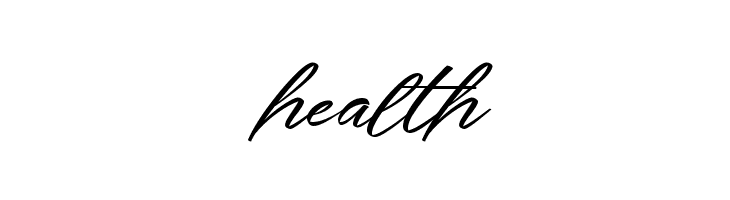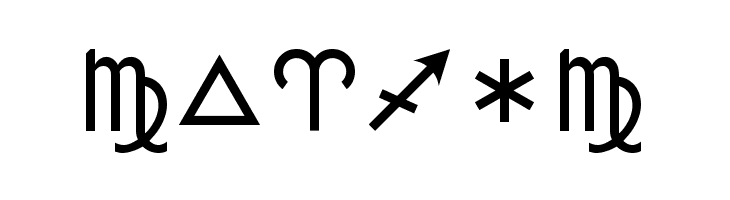
Hamburger Heaven NF Font
A bold, slanted font with a dynamic and energetic style.
Heimat Font
A bold and ornate Blackletter font with intricate details and historic charm.
HamburgerHeaven Font
A bold, dynamic font with a slight slant and modern elegance.
Neudeutsch Font
A bold, dramatic blackletter-style font with sharp, angular lines and intricate detailing.
South Hamburg Font
A sophisticated and elegant script font with fluid, cursive strokes.
DTCBrodyM37 Font
Leibniz-Fraktur Font
A decorative blackletter font with intricate, Gothic-inspired letterforms.
Schwaben Alt Bold Font
A bold, ornate blackletter font with a medieval aesthetic.
Schwaben Alt UNZ1A Italic Font
A classic blackletter font with intricate, angular strokes and a medieval feel.
Brahms-Gotisch Font
A bold, intricate blackletter font with a medieval aesthetic.
Hamburge Regular Font
A modern sans-serif font with rounded edges and uniform stroke width.
Hamburg Regular Font
A bold, decorative font with intricate details and strong character presence.
Pee's Celtic Plain Font
A decorative font with Celtic-inspired interwoven patterns and bold, ornate letters.
Schwaben Alt UNZ1A Font
An ornate and traditional font with intricate, decorative letterforms.
Salmon Hamburger Font
A bold, playful handwritten font with rounded strokes and a whimsical style.
HamburgerHeaven Font
A bold, dynamic font with a modern slant and strong visual impact.
Nordland Font
A bold, gothic-style font with intricate, angular detailing.
DTCBrodyM33 Font
A bold, decorative font with a unique pattern resembling scattered leaves.
Hamburg Font
A playful and energetic script font with flowing, cursive letterforms.
HamburgSymbols Font
A decorative font featuring a variety of unique symbols and abstract characters.